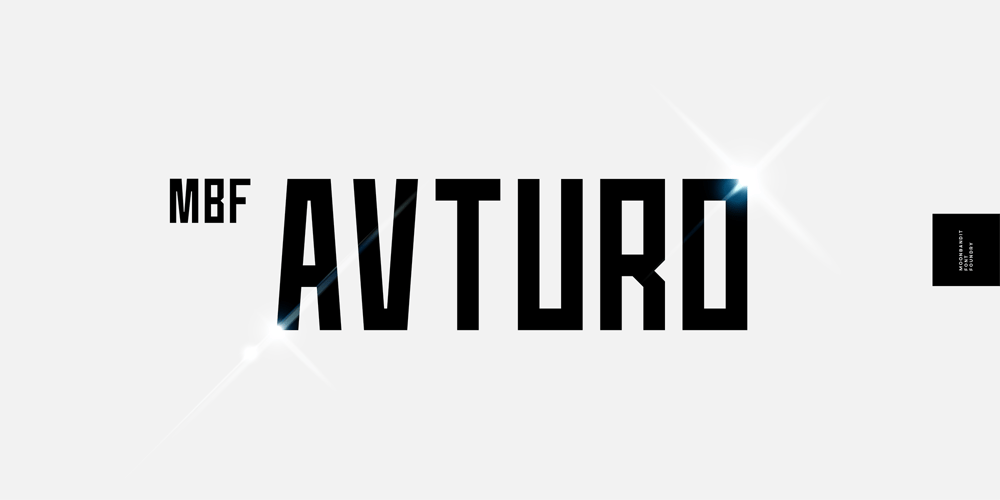
MBF Avturo Font Family was designed by Bramaji Dipa Manggala and published by Moonbandit. MBF Avturo contains 3 styles and family package options. Introducing MBF Avturo, a square, condensed, modern, minimalist typeface that redefines versatility. Clean lines and a sleek design make it an eye-catcher, while its three weights – light, regular, and bold – offer a spectrum of possibilities for your creative endeavors. Elevate your projects with MBF Avturo’s contemporary charm and minimalist sophistication.